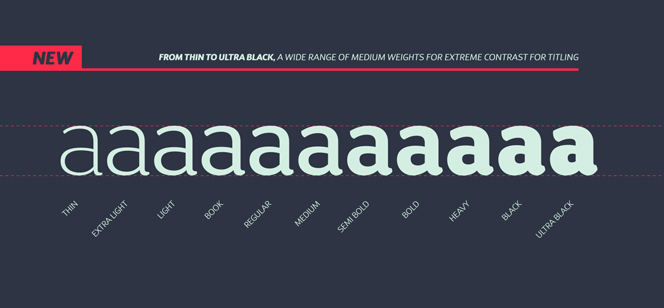
DSari font
DSari font by the Chilean type designer Diego Aravena Silo (Latinotype foundry) is a mild Sans family carrying the neo-humanist fonts’ low contrast and large x-height, but softened and gentled, with less pointed shapes. DSari typeface family comes in the wide variety of 11 weights: from Thin to Ultra Black, which together with their italics form the impressive number of 22 variations in the font family, designed for an extreme titling contrast. DSari font family is a perfect choice for highlighting lettering, magazines, motion graphics, advertising, logotypes, signs, etc.
DSari font received a “Certificate of Excellence” at the 2014 Tipos Latinos Biennale.